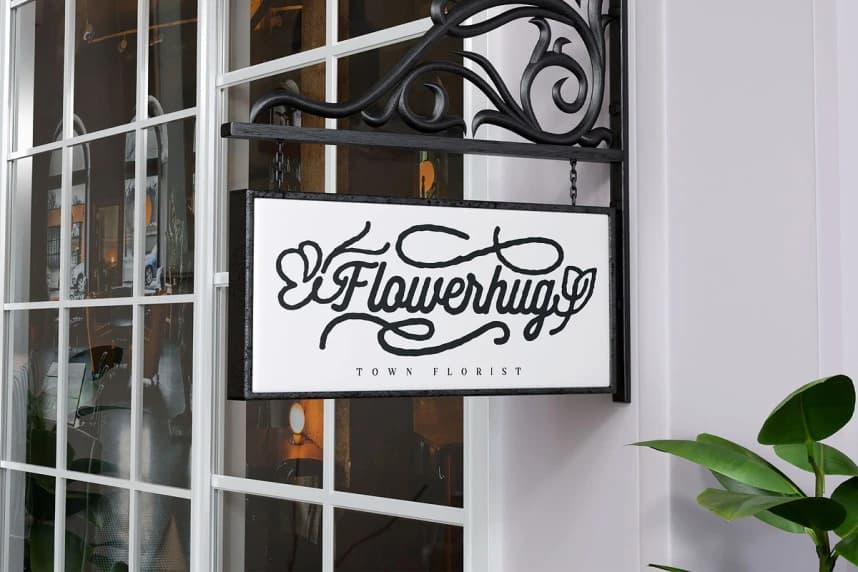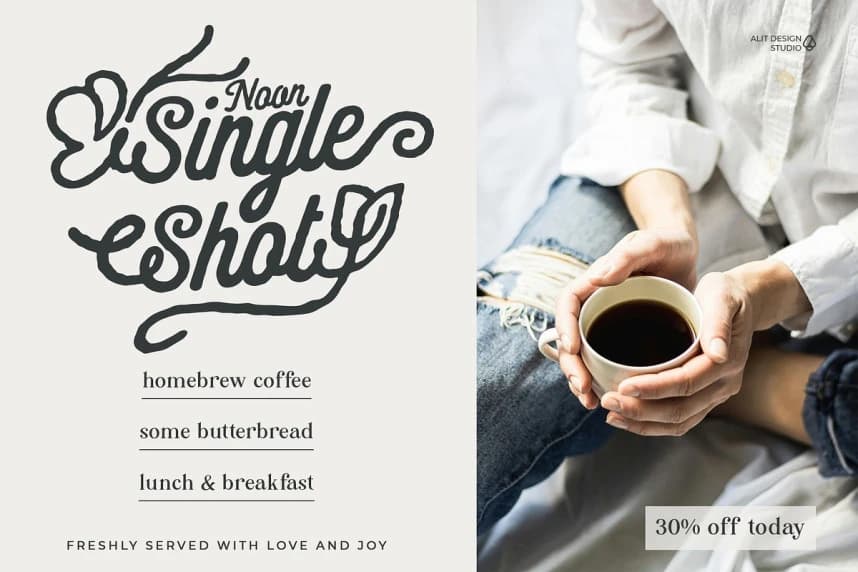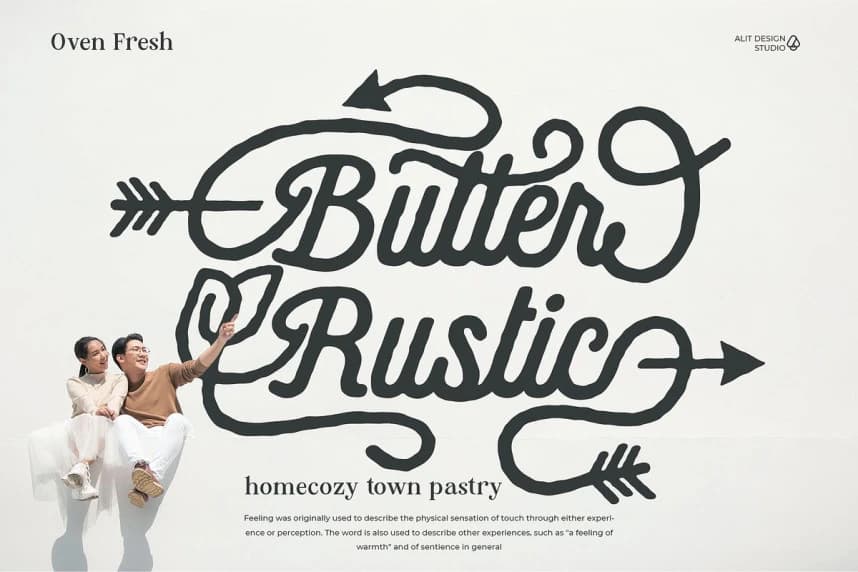
Hunter flora Font
Hunter Flora Font, a beautifully crafted handwritten script brought to you by Alit Design Studio. Designed to bring a touch of organic nature and playful charm to your projects, Hunter Flora is the perfect balance between casual elegance and creative versatility.